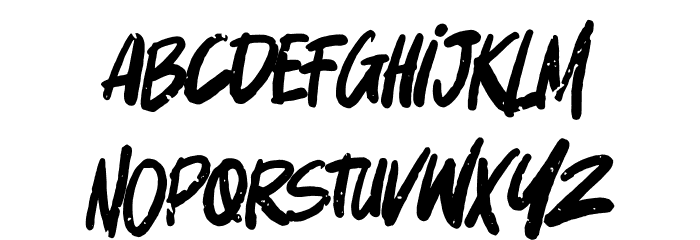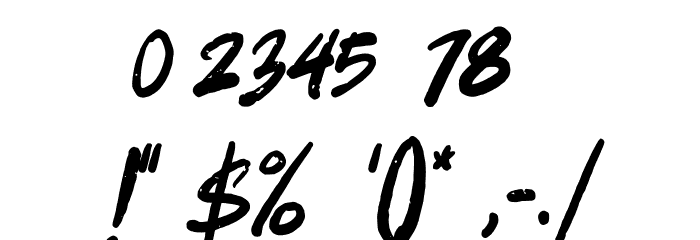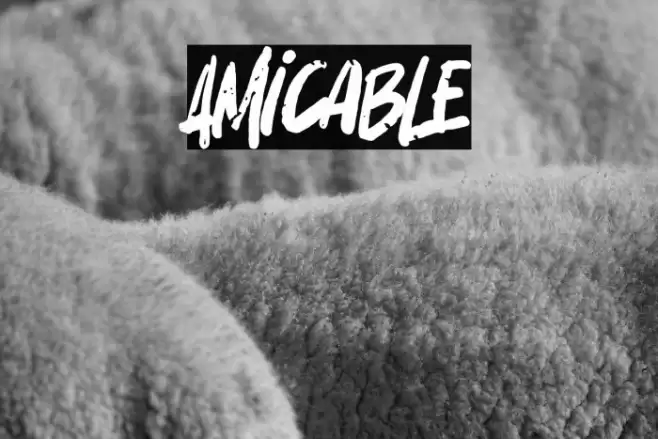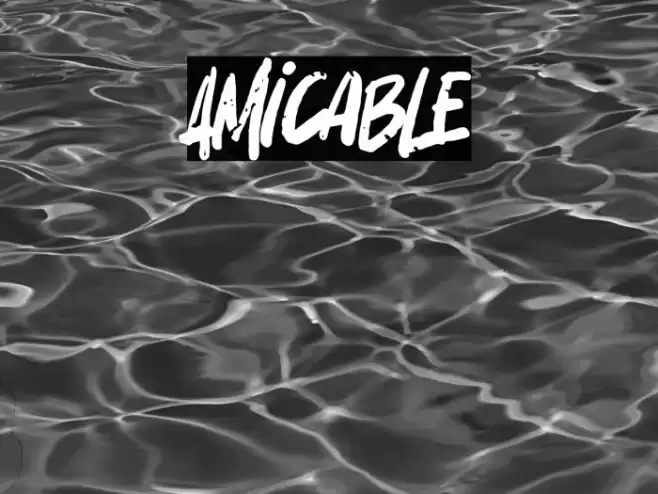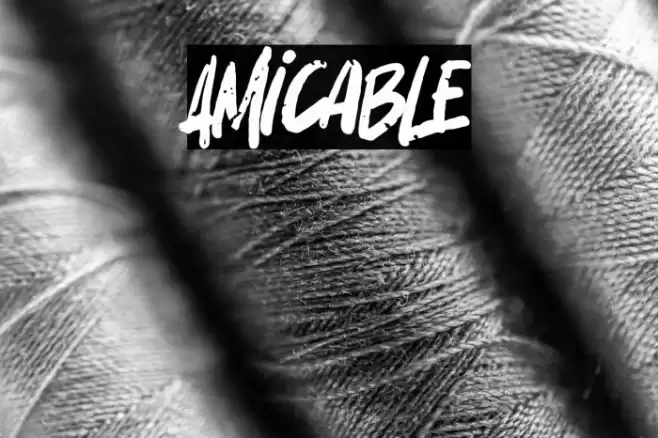
Amicable Font
This font exudes a bold and energetic style, characterized by its brush-like strokes and dynamic flow. The uppercase and lowercase letters maintain a consistent, hand-drawn appearance, giving it a personal and artistic touch. The numbers and special characters follow the same aesthetic, ensuring a cohesive look across all characters. The font's irregular edges and varying stroke thickness add to its expressive nature, making it stand out in any design. Its unique style is both modern and edgy, perfect for projects that require a strong visual impact.
A bold, brush-style font with dynamic, hand-drawn strokes.
- Proposed Projects: Ideal for posters, album covers, branding, and creative projects that require a bold statement.